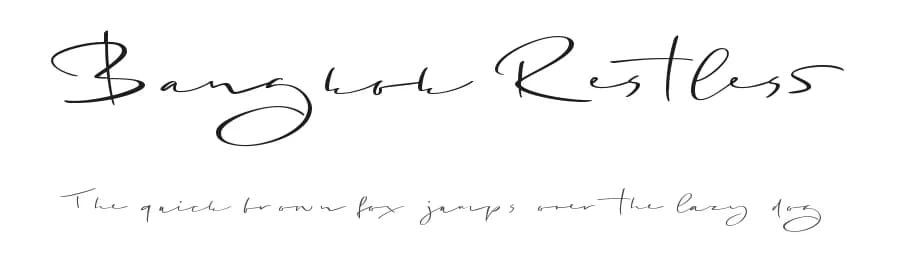
About Bangkok Restless Font
BANGKOK RESTLESS is a casual, handwritten script.
The full font contains many more stylistic alternates for a better flow and natural look, more symbols and accents for all European Latin Languages.
| Designer | Roland HΓΌse |